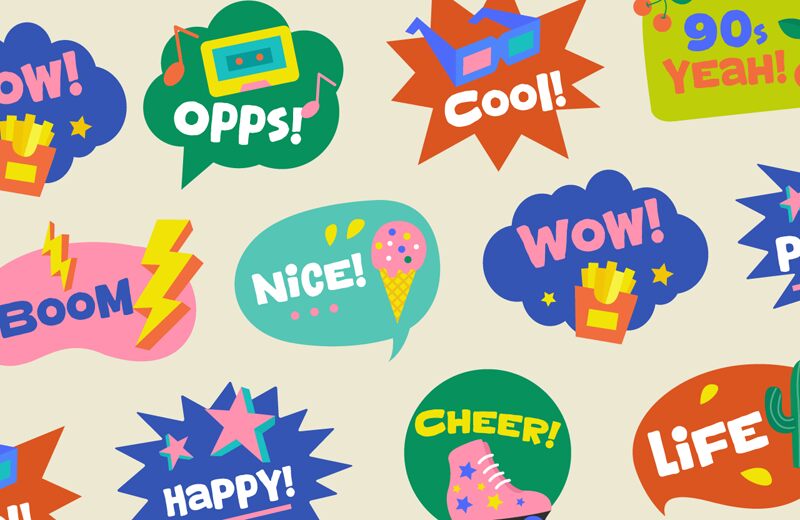
Jesty font by Eko Bimantara is a free cartoon font featuring an engaging and fun design. The font combines elements of retro influence and a whimsical atmosphere into a friendly tone. Its informal appearance makes it perfect for casual themes and engaging design styles. Ideally, this font fits design projects targeting children, but don’t let that stop you from using it to speak to other audiences either.
Logos, titles, and typography for games, books, and posters are part of the projects Jesty can be used in. It’s also great for social media posts, magazines, websites, TV shows, and even personal blogs. Perfect for schools, kindergartens, toy shops, and other brands in the childcare industry. Mix it with illustrations and a bright color palette to secure any viewer’s attention.